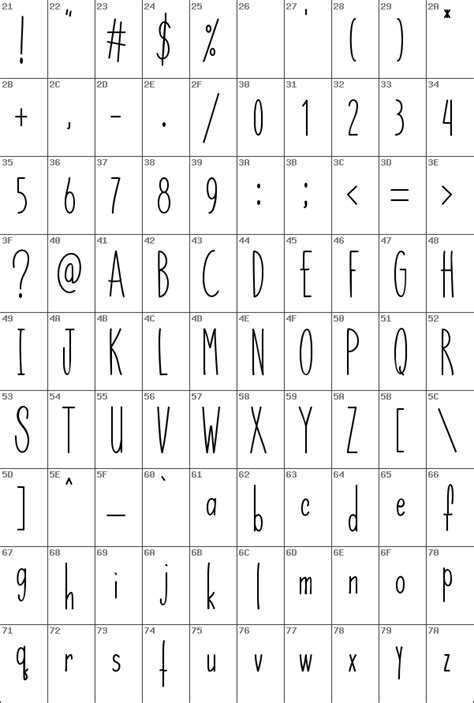
Insta Regular: Your Guide To The Font And Its Uses
Insta Regular: Your Comprehensive Guide
Hey guys! Ever stumbled upon a font that just feels right? Maybe you’ve seen it gracing the pages of a sleek magazine, or perhaps it popped up on a website that just oozes sophistication. Chances are, you might have encountered Insta Regular . This isn’t your run-of-the-mill typeface; it’s a carefully crafted piece of art that can elevate your designs from good to wow . So, what’s the big deal about Insta Regular? Let’s dive in and explore everything you need to know about this versatile font.
Insta Regular isn’t just another face in the font crowd; it’s a typeface designed with a clear purpose: to bring clarity and elegance to any design. Whether you’re a seasoned designer or just starting, understanding the nuances of this font can significantly impact how your projects are perceived. What sets Insta Regular apart is its clean, minimalist design. The strokes are consistent, the curves are gentle, and the overall impression is one of understated sophistication. This makes it incredibly versatile, fitting seamlessly into various contexts, from corporate reports to creative branding.
The beauty of Insta Regular lies in its adaptability. Imagine you’re crafting a brand identity for a high-end fashion boutique. The font needs to convey luxury and exclusivity. Insta Regular, with its refined lines and balanced letterforms, can perfectly capture that essence. Or, perhaps you’re designing a user interface for a tech startup. Here, readability and clarity are paramount. Insta Regular shines again, offering a clean and approachable look that ensures a seamless user experience. Its open forms and generous spacing make it easy on the eyes, even at smaller sizes. This makes it ideal for body text, ensuring your message is always clear and accessible. Moreover, Insta Regular’s neutral appearance allows it to pair well with a variety of other fonts. You can combine it with a bolder, more decorative typeface for headlines to create a striking contrast, or use it alongside a classic serif for a timeless and elegant feel. The possibilities are endless, and with a little creativity, you can achieve a unique and impactful visual identity. Ultimately, Insta Regular is more than just a font; it’s a tool that empowers you to communicate your message with clarity, elegance, and style. Its versatility and timeless appeal make it a valuable asset in any designer’s toolkit.
The History and Design of Insta Regular
Alright, let’s get into the nitty-gritty of Insta Regular – where it came from and what makes it tick. Fonts don’t just appear out of thin air; they’re the result of painstaking work and a vision. Insta Regular is no exception. Understanding its origins can give you a deeper appreciation for its design and how to best use it.
Insta Regular was conceived by a team of typographers passionate about creating a font that was both modern and timeless. They wanted something that could bridge the gap between traditional and contemporary design, offering a clean, minimalist aesthetic that wouldn’t feel dated in a few years. The designers meticulously crafted each letterform, paying close attention to details like stroke weight, x-height, and spacing. The goal was to achieve perfect harmony and balance, ensuring that the font was both visually appealing and highly readable. One of the key characteristics of Insta Regular is its geometric construction. The letterforms are based on simple geometric shapes, giving the font a clean, structured look. This is particularly evident in letters like ‘O’, ‘C’, and ‘Q’, which are almost perfect circles. The designers also incorporated subtle humanist touches, such as slightly curved terminals and varying stroke widths, to add warmth and personality. This prevents the font from feeling too sterile or mechanical.
Another important aspect of Insta Regular’s design is its emphasis on clarity and legibility. The font has a relatively large x-height, which refers to the height of the lowercase letters relative to the uppercase letters. This makes the lowercase letters appear larger and more prominent, improving readability, especially in body text. The spacing between letters and words is also carefully calibrated to ensure optimal reading flow. The designers avoided overly tight spacing, which can make text look cluttered and difficult to read, and instead opted for a more generous spacing that enhances clarity. The design team also considered the font’s performance in different media. They tested it extensively in print and on screen to ensure that it looked crisp and clear in all contexts. This attention to detail is what sets Insta Regular apart from many other fonts. It’s a font that has been carefully optimized for both aesthetic appeal and practical use. Ultimately, Insta Regular is a testament to the power of thoughtful design. It’s a font that has been crafted with intention and purpose, and its timeless appeal is a reflection of the designers’ commitment to quality and innovation. By understanding the history and design principles behind Insta Regular, you can appreciate its unique qualities and use it to its full potential in your own design projects.
Key Characteristics of Insta Regular
Okay, let’s break down what makes Insta Regular tick. What are those unique features that make it stand out from the crowd? Knowing these characteristics will help you use it effectively in your designs.
One of the most noticeable aspects of Insta Regular is its clean and minimalist aesthetic. The font features simple, unadorned letterforms with consistent stroke weights and subtle curves. This gives it a modern and sophisticated look that is both timeless and versatile. Unlike more decorative fonts, Insta Regular doesn’t rely on ornamentation or embellishments to catch the eye. Instead, it focuses on clarity and simplicity, allowing the content to take center stage. This makes it an excellent choice for projects where readability and clarity are paramount, such as websites, brochures, and presentations.
Another key characteristic of Insta Regular is its geometric construction. The letterforms are based on simple geometric shapes, such as circles, squares, and triangles. This gives the font a structured and organized feel, making it easy on the eyes. The geometric design also contributes to its overall balance and harmony. Each letterform is carefully crafted to ensure that it complements the others, creating a cohesive and visually appealing typeface. In addition to its geometric construction, Insta Regular also incorporates subtle humanist touches. These are small details that add warmth and personality to the font, preventing it from feeling too sterile or mechanical. For example, the terminals of the letters are slightly curved, and the stroke weights vary slightly to create a more natural and organic feel. These subtle details are what give Insta Regular its unique character and make it stand out from other geometric sans-serif fonts. Furthermore, Insta Regular is designed with readability in mind. The font has a relatively large x-height, which makes the lowercase letters appear larger and more prominent. This improves readability, especially in body text. The spacing between letters and words is also carefully calibrated to ensure optimal reading flow. The designers avoided overly tight spacing, which can make text look cluttered and difficult to read, and instead opted for a more generous spacing that enhances clarity. In summary, Insta Regular is characterized by its clean and minimalist aesthetic, geometric construction, humanist touches, and emphasis on readability. These qualities make it a versatile and timeless font that can be used in a wide range of design projects.
How to Use Insta Regular in Your Designs
So, you’re digging Insta Regular ? Awesome! Now, how do you actually use it in your projects? Here are some practical tips and tricks to get the most out of this fantastic font.
First off, consider the overall tone and style of your design. Insta Regular is a versatile font, but it’s not a one-size-fits-all solution. It works best in projects that require a clean, modern, and sophisticated look. Think websites, branding materials, editorial layouts, and presentations. If you’re working on a project that requires a more playful or whimsical feel, you might want to consider a different font. When using Insta Regular, pay attention to hierarchy and contrast. Use different weights and sizes to create visual interest and guide the reader’s eye. For example, you could use the bold weight for headlines and the regular weight for body text. You could also use different colors to create contrast and highlight important information. Just make sure that the colors you choose are complementary and easy on the eyes.
Another important consideration is spacing. Insta Regular looks best when it has plenty of breathing room. Avoid overcrowding the text and make sure that there is enough space between letters, words, and lines. This will improve readability and give the design a more polished and professional look. When choosing a font to pair with Insta Regular, look for something that complements its clean and minimalist aesthetic. A classic serif font, such as Times New Roman or Garamond, can create a nice contrast and add a touch of elegance. Alternatively, you could pair Insta Regular with another sans-serif font that has a slightly different personality. Just make sure that the two fonts don’t clash or compete with each other. In addition to choosing the right fonts, you should also pay attention to the overall typography of your design. Use consistent font sizes, weights, and styles throughout the project. This will create a sense of unity and coherence. Also, be sure to proofread your text carefully to catch any errors or typos. Nothing ruins a good design faster than sloppy typography. Finally, don’t be afraid to experiment with different layouts and compositions. Try different font combinations, sizes, and colors to see what works best. The key is to have fun and let your creativity shine. With a little practice, you’ll be able to use Insta Regular to create stunning and effective designs. Remember, the best way to learn is by doing, so get out there and start experimenting! Have fun, and happy designing!
Examples of Effective Insta Regular Usage
Alright, let’s get inspired! Seeing Insta Regular in action can really spark some ideas. Here are a few examples of how it’s been used effectively in different design contexts.
Website Design: Many websites use Insta Regular for its clean and readable qualities. Its neutrality allows it to blend seamlessly with various design elements, making it a popular choice for both headlines and body text. For example, a tech startup might use Insta Regular on its website to convey a sense of innovation and modernity. The clean lines and minimalist design of the font complement the company’s cutting-edge technology and create a professional and trustworthy image. Similarly, a non-profit organization might use Insta Regular on its website to communicate its message with clarity and simplicity. The font’s readability ensures that visitors can easily understand the organization’s mission and goals.
Branding Materials: Insta Regular is a fantastic choice for creating a consistent brand identity. Its versatility allows it to be used across various marketing materials, from business cards to brochures. Consider a high-end fashion brand using Insta Regular in its branding. The font’s elegant and sophisticated appearance perfectly reflects the brand’s luxury aesthetic. It can be used on everything from the logo to the packaging, creating a cohesive and recognizable brand identity. Similarly, a modern coffee shop might use Insta Regular in its branding to convey a sense of simplicity and quality. The font’s clean lines and minimalist design complement the shop’s focus on artisanal coffee and create a welcoming and inviting atmosphere.
Editorial Layouts: Magazines and books often benefit from Insta Regular’s readability. Its clear letterforms make it easy on the eyes, ensuring a pleasant reading experience for the audience. Imagine a lifestyle magazine using Insta Regular for its body text. The font’s readability ensures that readers can easily follow the articles, while its clean and modern design complements the magazine’s overall aesthetic. Similarly, a textbook might use Insta Regular for its clear and concise presentation of information. The font’s readability helps students focus on the content and improves their understanding of the material. These examples demonstrate the versatility and effectiveness of Insta Regular in various design contexts. By studying how others have used the font successfully, you can gain inspiration and develop your own creative applications. Remember, the key is to understand the font’s strengths and weaknesses and to use it in a way that enhances the overall design.
Alternatives to Insta Regular
Okay, so maybe Insta Regular isn’t exactly what you’re after. No worries! There are tons of other awesome fonts out there. Let’s check out some alternatives that offer similar vibes.
Helvetica: This is a classic sans-serif font that’s known for its clean and neutral appearance. It’s a great alternative to Insta Regular if you’re looking for something that’s a bit more traditional. Helvetica has been used in countless design projects over the years, and it’s still a popular choice today. Its simplicity and readability make it a versatile option for websites, branding materials, and editorial layouts.
Arial: Arial is another popular sans-serif font that’s often used as a substitute for Helvetica. It’s a bit more rounded than Helvetica, which gives it a slightly softer and more approachable feel. Arial is a good choice if you’re looking for a font that’s easy on the eyes and that works well in a variety of different contexts. It’s a widely available font that’s included with most operating systems, making it a convenient option for many designers.
Open Sans: Open Sans is a humanist sans-serif font that’s designed for readability on screens. It has a slightly wider letter spacing than Insta Regular, which makes it easier to read at smaller sizes. Open Sans is a great choice for websites and mobile apps where readability is paramount. It’s also a free and open-source font, which makes it an attractive option for designers who are on a budget.
Lato: Lato is a sans-serif font that has a warm and friendly personality. It has rounded letterforms and a slightly condensed width, which makes it a good choice for designs that need to convey a sense of approachability and informality. Lato is a versatile font that can be used for both headlines and body text. It’s also a free and open-source font, which makes it a great option for designers who are looking for a high-quality font without breaking the bank.
These are just a few of the many alternatives to Insta Regular that are available. When choosing a font for your project, it’s important to consider the overall tone and style of your design, as well as the specific requirements of the project. Experiment with different fonts to see what works best, and don’t be afraid to try something new. With a little research and experimentation, you’re sure to find the perfect font for your next design project.
Conclusion: Why Insta Regular Might Be Your New Favorite Font
So, there you have it! Insta Regular – a font that’s both elegant and versatile. Whether you’re a seasoned designer or just starting, it’s definitely worth adding to your font library.
From its clean lines and geometric construction to its emphasis on readability and versatility, Insta Regular offers a unique blend of qualities that make it a valuable asset for any designer. Its minimalist aesthetic and subtle humanist touches allow it to seamlessly integrate into a wide range of design projects, from websites and branding materials to editorial layouts and presentations. Whether you’re looking to convey a sense of modernity and sophistication or simply want a font that is easy on the eyes and highly readable, Insta Regular is a great choice.
But don’t just take my word for it. Experiment with Insta Regular in your own designs and see for yourself how it can elevate your work. Try different font combinations, sizes, and colors to discover its full potential. And if you’re not quite sold on Insta Regular, remember that there are plenty of other great fonts out there. Explore different options and find the one that best suits your needs and preferences.
Ultimately, the goal is to choose a font that effectively communicates your message and enhances the overall design. Whether that’s Insta Regular or something else entirely, the key is to be thoughtful and intentional in your selection. So go forth, experiment, and have fun designing! Who knows, Insta Regular might just become your new favorite font.